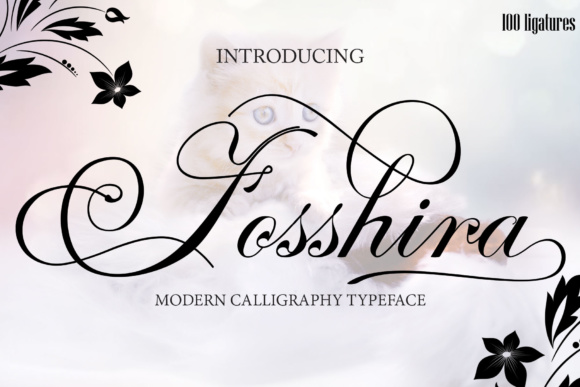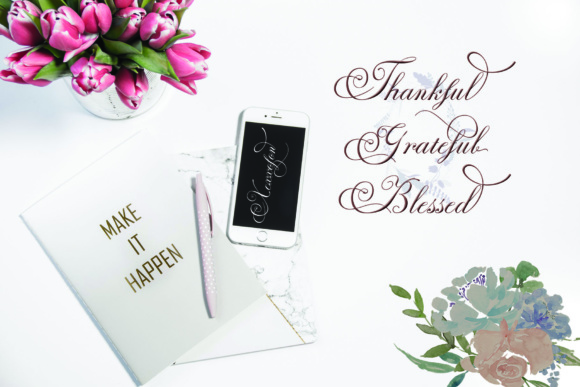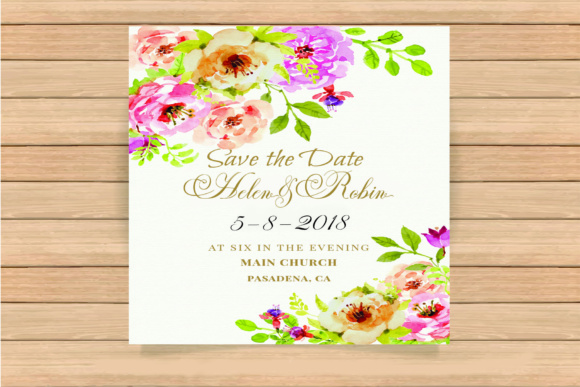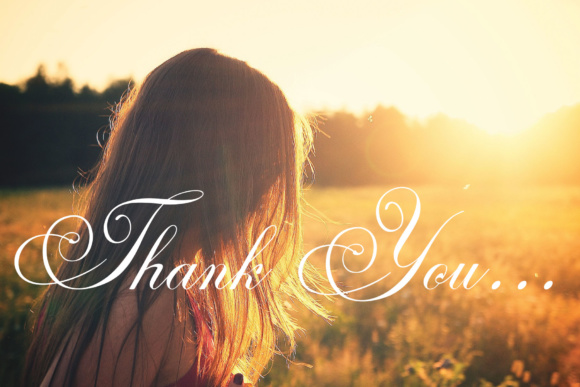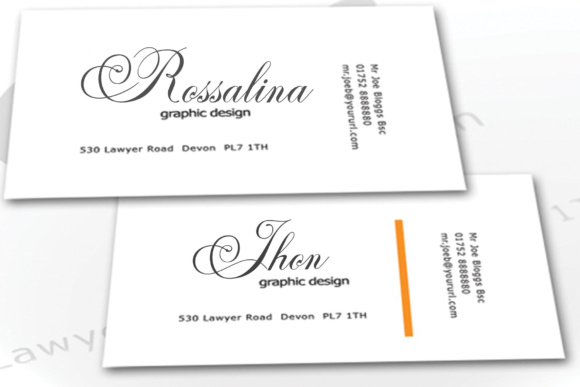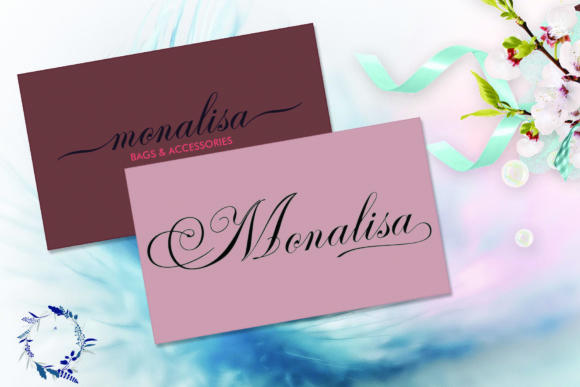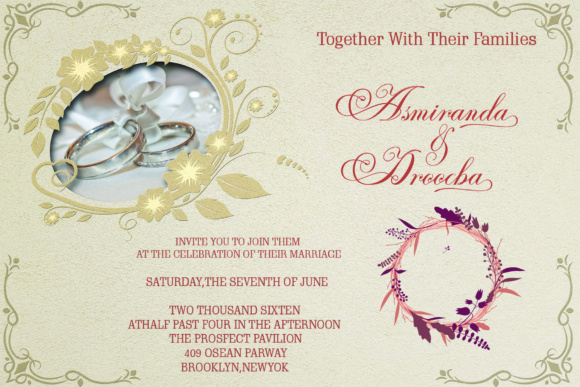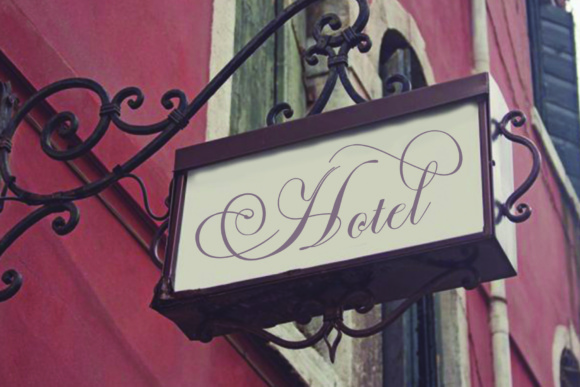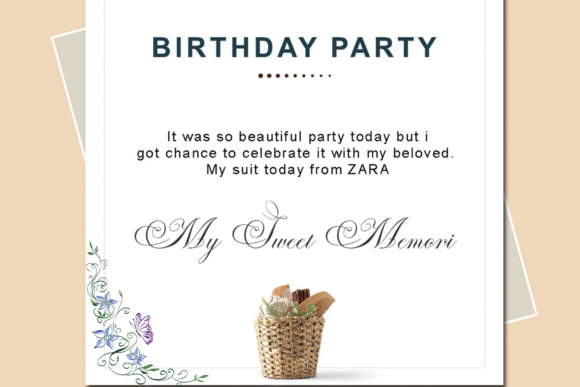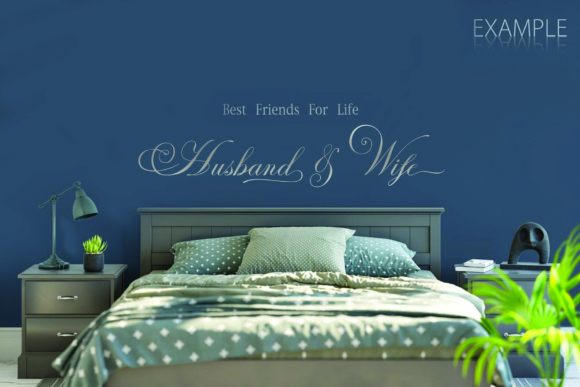
HomeScript FontsFosshira Script Font Script Fonts Fosshira Script Font FacebookXPinterestWhatsApp Fosshira Script Font Poster 2 Fosshira Script Font Poster 3 Fosshira Script Font Poster 4 Fosshira Script Font Poster 5 Fosshira Script Font Poster 6 Fosshira Script Font Poster 7 Fosshira Script Font Poster 8 Fosshira Script Font Poster 9 Fosshira Script Font Poster 10 Fosshira Script Font Poster 11 Fosshira Script Font Poster 12 About Fosshira Script Font The Fosshira is a handmade calligraphy font which will add a touch of elegance to every project. DOWNLOAD NOW People also explored Dialova Font Briyties Font Bought Twenty Font Elfvice Font Airoz Font Thorque Font Lucky Station Font Rosalint Font Antasia Font 283 0 TagsFosshira Script Font Previous articleCharlotte FontNext articleGlenmore Font LEAVE A REPLY Cancel reply Comment: Please enter your comment! Name:* Please enter your name here Email:* You have entered an incorrect email address! Please enter your email address here Website: Save my name, email, and website in this browser for the next time I comment. Personal Use Free Angelika Playful Personal Use Free Read more about this font Arnprior Personal Use Free Read more about this font Rionaldo Angelo Personal Use Free Read more about this font Charletto Personal Use Free Read more about this font BLOG Best Fonts for T-Shirt Design – Top 2025 Picks In 2025, t-shirt design has become more than just fashion—it's a form of self-expression. Whether you're... 5 Fonts That Will Dominate Design Trends in 2026 Top 7 Google Fonts Alternatives for Faster and Privacy-Friendly Web Design (2025) Best Fonts for YouTube Videos: Make Your Thumbnails Stand Out